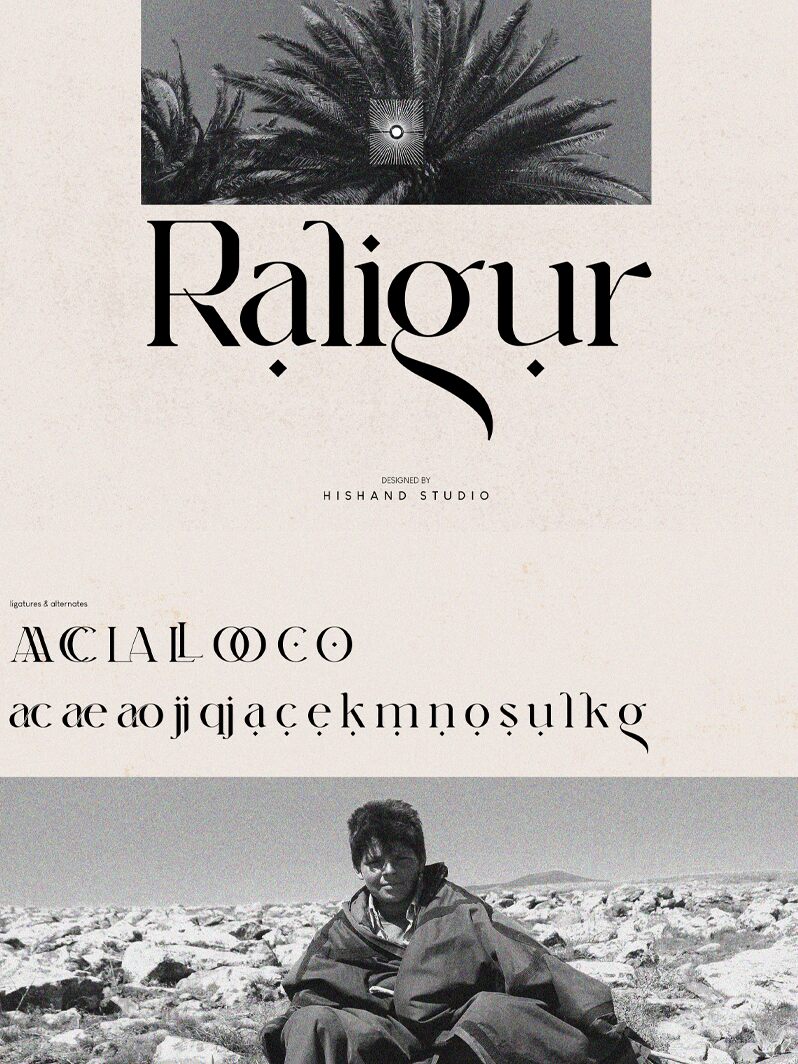
Raligur font by Hishand Studio is a captivating serif typeface that blends elegance with classic style. Its refined curves and sophisticated charm make it an ideal choice for projects that demand a touch of luxury. The distinctive lettering features dramatic contrasts between thick and thin strokes, offering a timeless aesthetic appeal.
Perfect for branding, editorial designs, or high-end product packaging, Raligur captures attention while maintaining readability. The font's artistic flair lends itself well to creative endeavors where sophistication and style are paramount.
Raligur
Hishand Studio